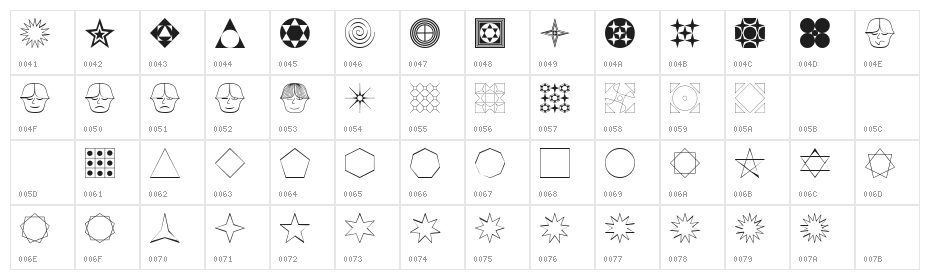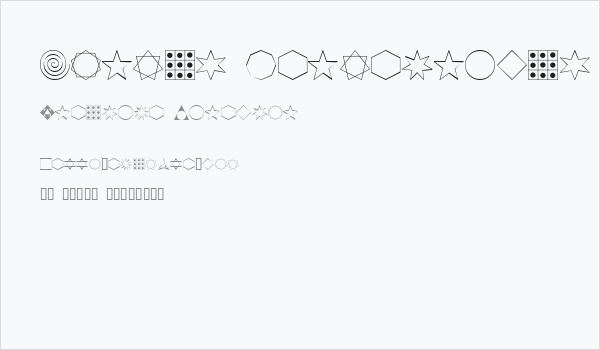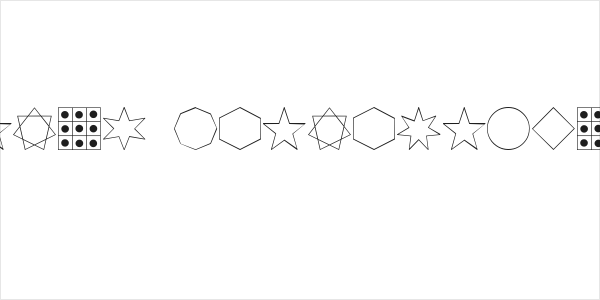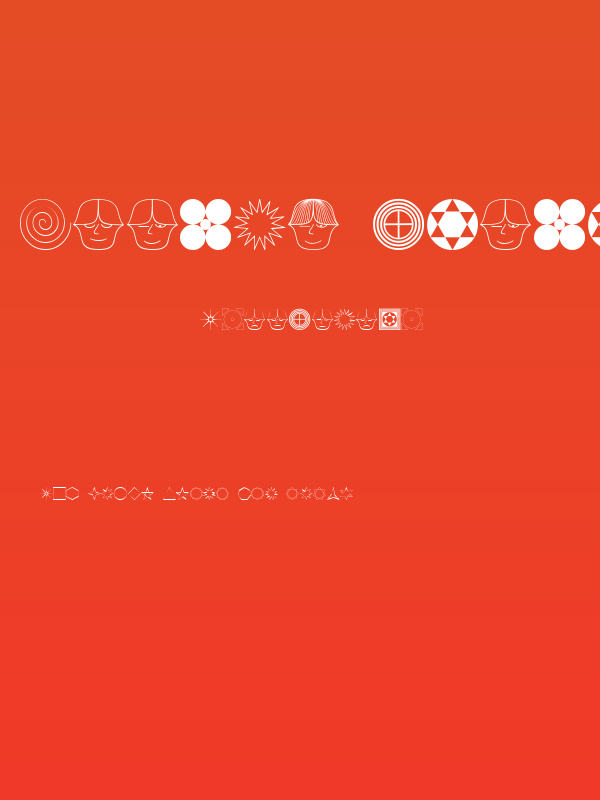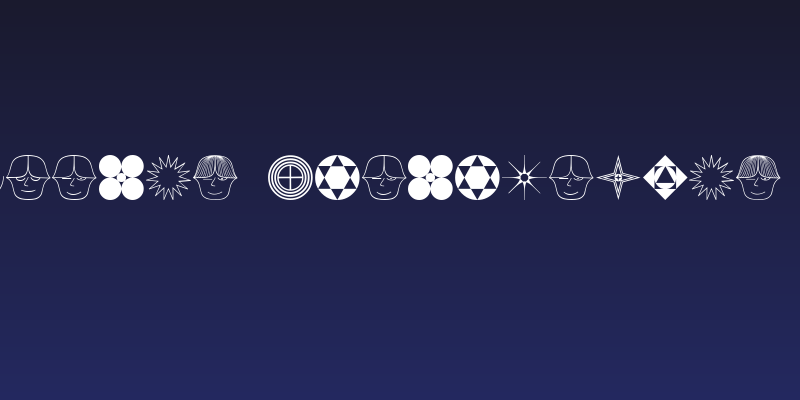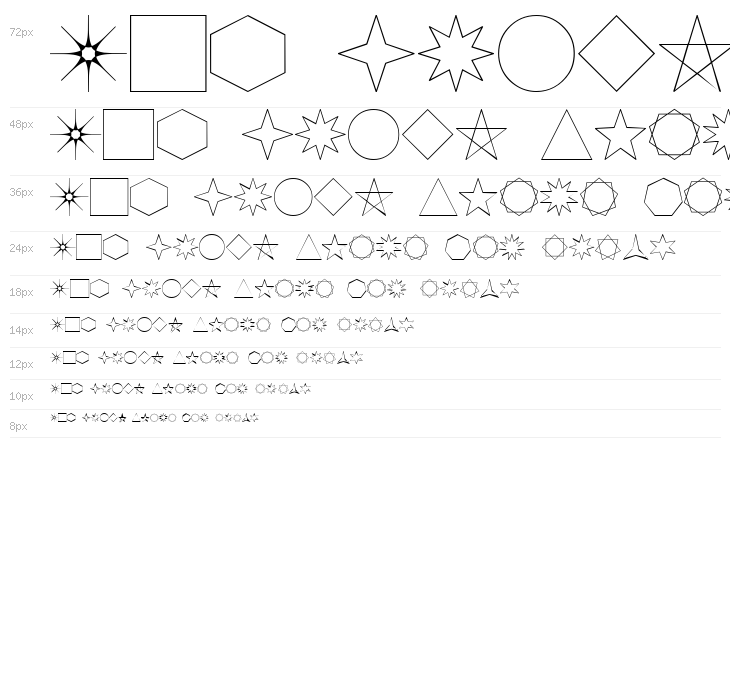
Formas germetricas 1 Font
Formas germetricas 1 Description
A collection of geometric and abstract shapes, including stars, polygons, circles, squares, spirals, and stylized faces, rendered in a monoline, outline style with varying stroke thickness. The set features both filled and outlined forms, as well as repetitive rectangular motifs.
| Overall Style | Decorative, Modern, Abstract |
| Use Case | Display, icons, visual accents, educational graphics |
| Proposed Projects | Posters, educational materials, infographics, branding, pattern design, digital interfaces. |